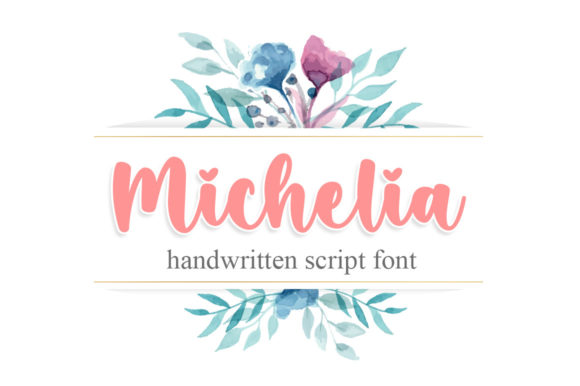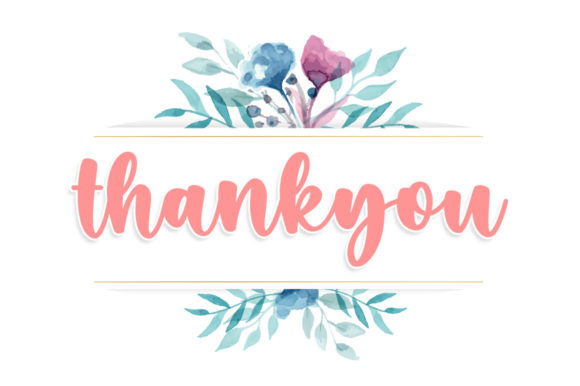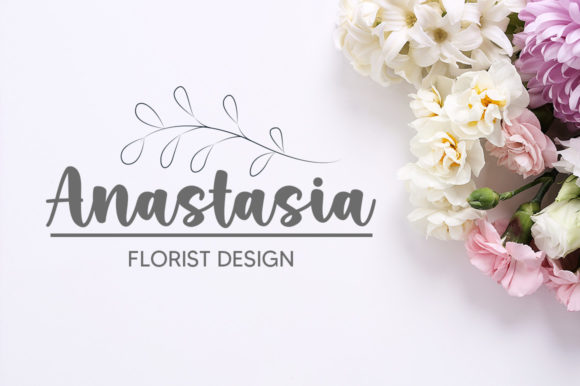
Michelia Font
About Michelia Font
Michelia is a delicate, elegant, and flowing handwritten font. It has beautiful and well-balanced characters and as a result, it matches a wide pool of designs. Add it to your most creative ideas, and notice how it makes them come alive!